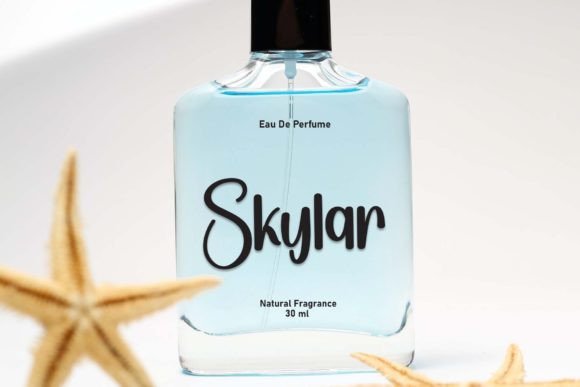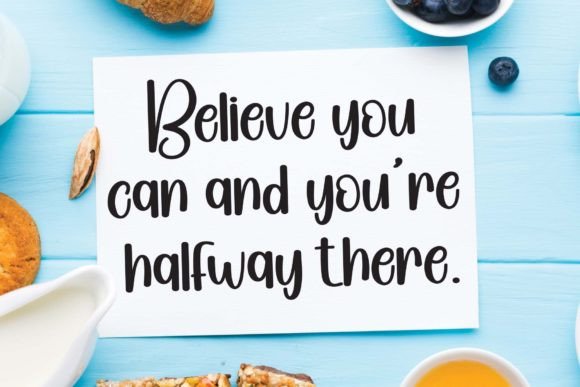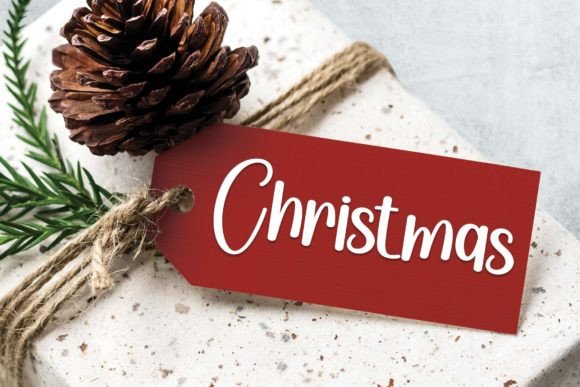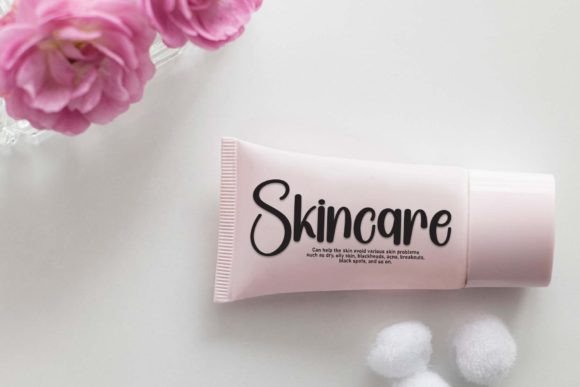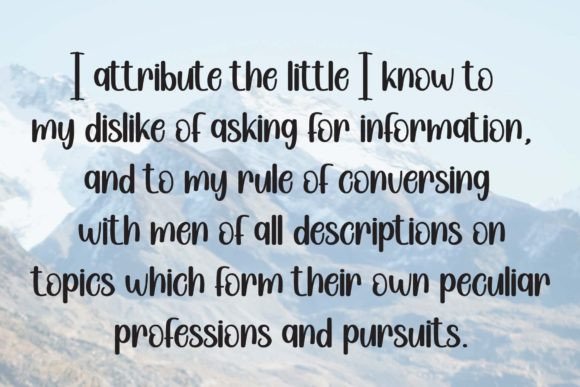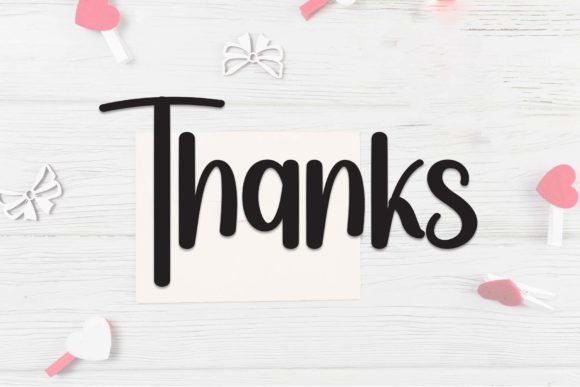
Introduction to Romantic Marker Font
Have you ever stared at a blank sheet of paper, feeling the pressure to create something truly special for a loved one or a dear friend? Maybe you’re a designer tasked with crafting the perfect wedding invitation or a heartfelt birthday card. Whatever the occasion, finding the right font can make all the difference. That’s where the Romantic Marker Font comes in – a sweet and friendly handwritten font that adds a touch of whimsy to any design.
As a valuable resource for designers, the Romantic Marker Font is a high-quality addition to any creative project. Its cute and fun style is perfect for adding a personal touch to wedding invitations, cards, or any other design that needs a little extra love. Plus, with a transparent background, you can easily overlay it on top of your design without any fuss.
Key Features of Romantic Marker Font
- High-quality design resource perfect for creative projects, with a beautiful and elegant style.
- Features a transparent background, allowing for seamless integration with any design or layout.
- Designed with a high-resolution (300 DPI) to ensure crisp and clear text rendering, ideal for print or digital applications.
- Unique characteristics include flowing lines, delicate flourishes, and a romantic aesthetic, making it perfect for wedding invitations, love letters, or other sentimental projects.
Honest Review: Romantic Marker Font
I recently stumbled upon the Romantic Marker Font, and I must say it’s been a great addition to my design resource collection. The font’s high-quality design is perfect for creating a whimsical and dreamy atmosphere in any creative project.
- ✨ Unique and playful script design
- ✨ Offers a transparent background for easy customization
- What’s not so great:
- ⚠️ Limited number of styles and variations
- ⚠️ Not ideal for formal or professional projects
While it may not be the most versatile font, its unique design and high-quality craftsmanship make it a valuable addition to any design library.
Romantic Marker Font
The Romantic Marker Font is a high-quality design resource perfect for creative projects that require a touch of elegance and sophistication. With its transparent background, this font is versatile and easy to use in various design applications.
For optimal results, use the Romantic Marker Font on a light background to make the text stand out. You can also experiment with different font sizes and styles to create a unique visual effect.
Alternatives to Romantic Marker Font
Beautiful Handwriting Font
Beautiful Handwriting Font is a high-quality design resource that features elegant and cursive script. It’s ideal for creative projects that require a touch of romance and sophistication. This font is perfect for wedding invitations, love letters, or any design that needs a personal and emotional touch.
Compared to Romantic Marker Font, Beautiful Handwriting Font has a more delicate and refined look, making it suitable for projects that require a more subtle approach. While Romantic Marker Font is bold and expressive, Beautiful Handwriting Font is gentle and soothing.